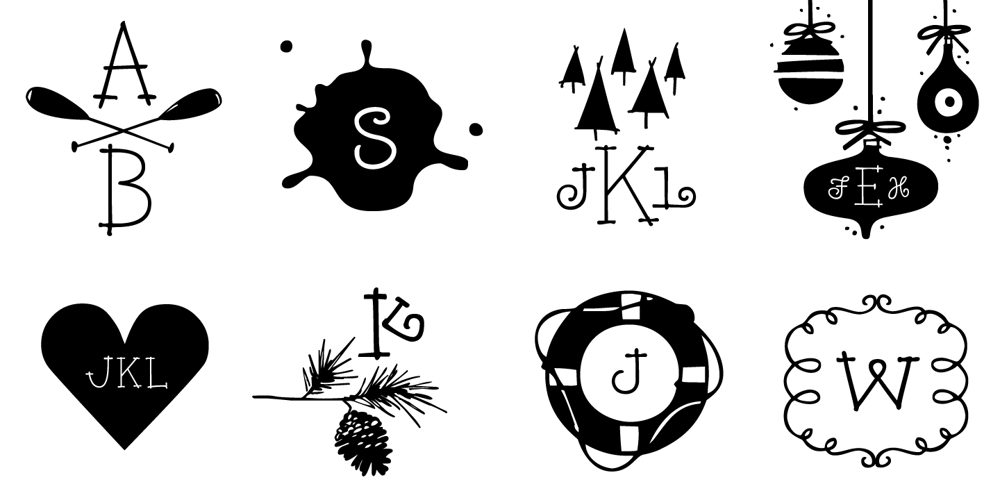
Rae’s Monogram Family
Rae’s Monogram Family font
Rae’s Monogram Family Font Family was designed by Rae Kaiser and published by Outside the Line. Rae’s Monogram Family contains 3 styles and family package options. Rae’s Monogram Family is a contemporary take on monograms. Rae’s Monogram One letters are best used as the right and left letters. You can add Rae’s Monogram Two for the middle letter. Rae’s Monogram Doodles One are 50 small illustrations to use with the monogram. If you don’t see the one you want take a look at over 1,000 others in Outside the Line’s Doodle font library. Of course just because it was planned this way doesn’t mean you have use them this way. Use your imagination! You can use just one font, or two or all three. Commercial Licensing: Rae’s Monogram Doodles One uses Outside the Line’s normal licensing if you are using an illustration alone or not in a monogram on commercial goods. Plz read the http://www.outside-the-line.com/license/ Rae’s Monogram One and Two offers Impression Licensing. If you don’t intend to sell any items made from these fonts you don’t need an additional license. But if you do, to make it easier Outside the Line offers the added ability to buy this license upgrade at the time you place your order. Plz contact Rae directly to do that. By default, you’re allowed to sell 250 items in total without any additional licensing required and should you intend to sell more items, additional levels of licensing can be purchased now or at any time in the future. To be clear, 250 items doesn’t refer to how many different items you may create but rather refers to the number of total sales of any item or items created with these fonts. If you have any questions or need additional commercial licensing feel free to contact Rae at hello@outside-the-line.com She is always happy to hear from you.